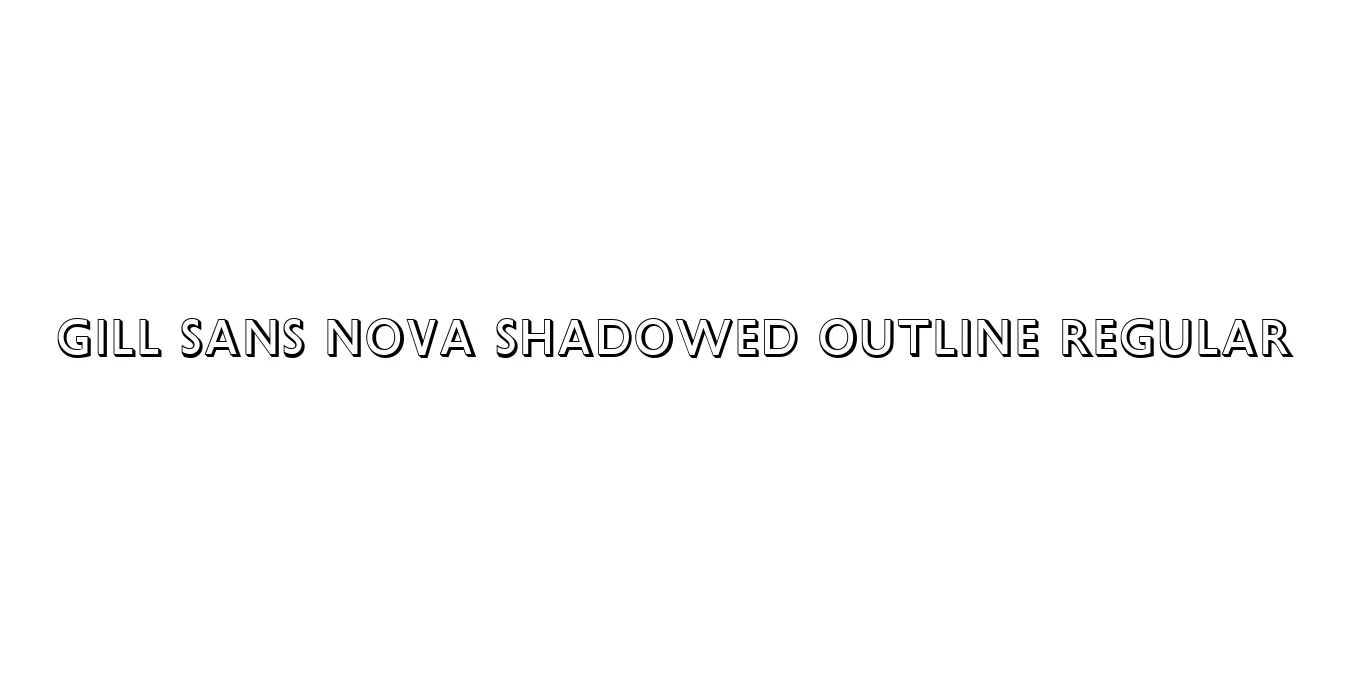
Gill Sans Nova Shadowed Outline Regular
Designed by Eric Gill, George Ryan (Monotype)
Gill Sans Nova Shadowed Outline Regular is a sophisticated expansion of the classic Gill Sans family, originally designed by the renowned British sculptor and typographer Eric Gill in 1928. This specific variant was developed as part of the Gill Sans Nova collection in 2015 by George Ryan at Monotype, aiming to bring the heritage of the original typeface into the modern digital era while adding decorative depth. The Shadowed Outline version captures the essence of early 20th-century British lettering, offering a distinctive three-dimensional appearance that remains rooted in humanist proportions.
This typeface is part of a larger suite that expanded the original 36 weights of Gill Sans to 43, including several display weights that were previously unavailable in digital formats. The Shadowed Outline style is particularly celebrated for its architectural quality and its ability to command attention without sacrificing the legibility that made the Gill Sans family a staple of public information systems, such as the LNER and the BBC. It serves as a bridge between traditional craftsmanship and contemporary graphic design, making it a favorite for high-end editorial and branding projects.
Gill Sans Nova Shadowed Outline Regular Best Uses
Perfect for striking magazine mastheads and section headers.
Ideal for logos requiring a sense of heritage, authority, and classic style.
Effective for large-scale environmental graphics and retail storefronts.
Great for high-impact visual communication that needs a retro aesthetic.